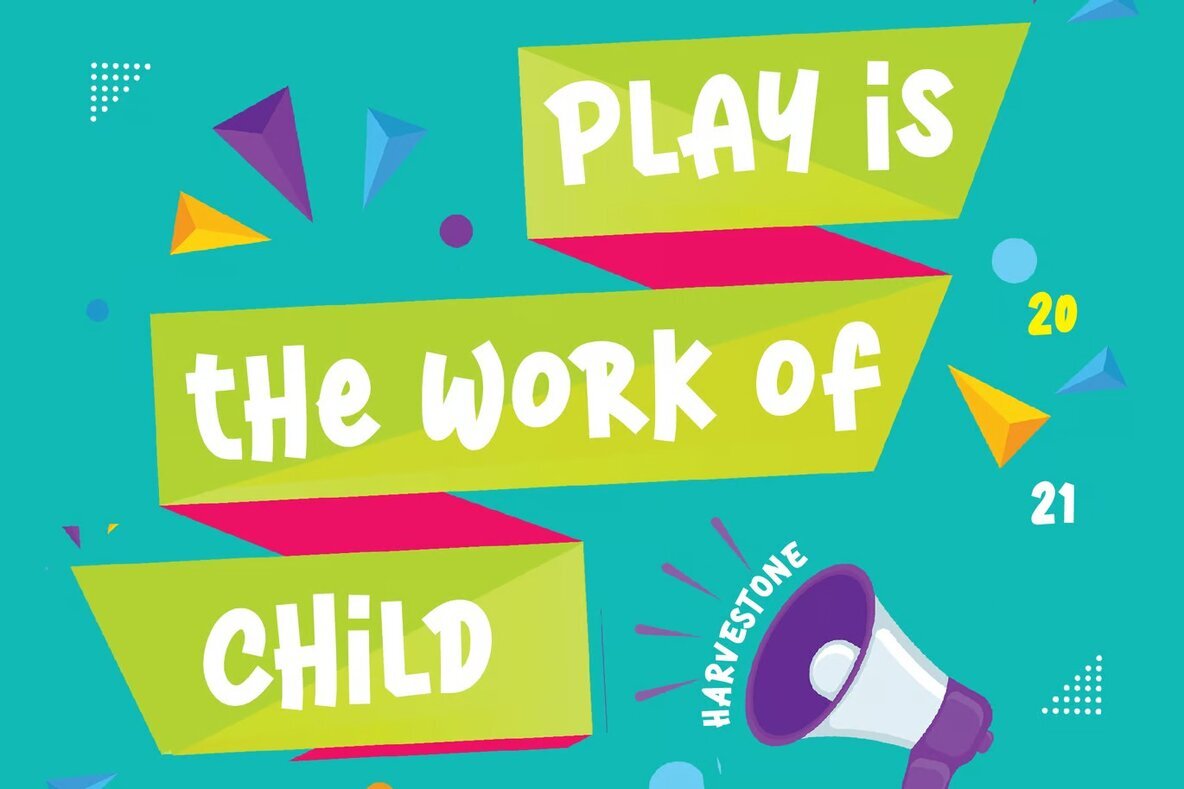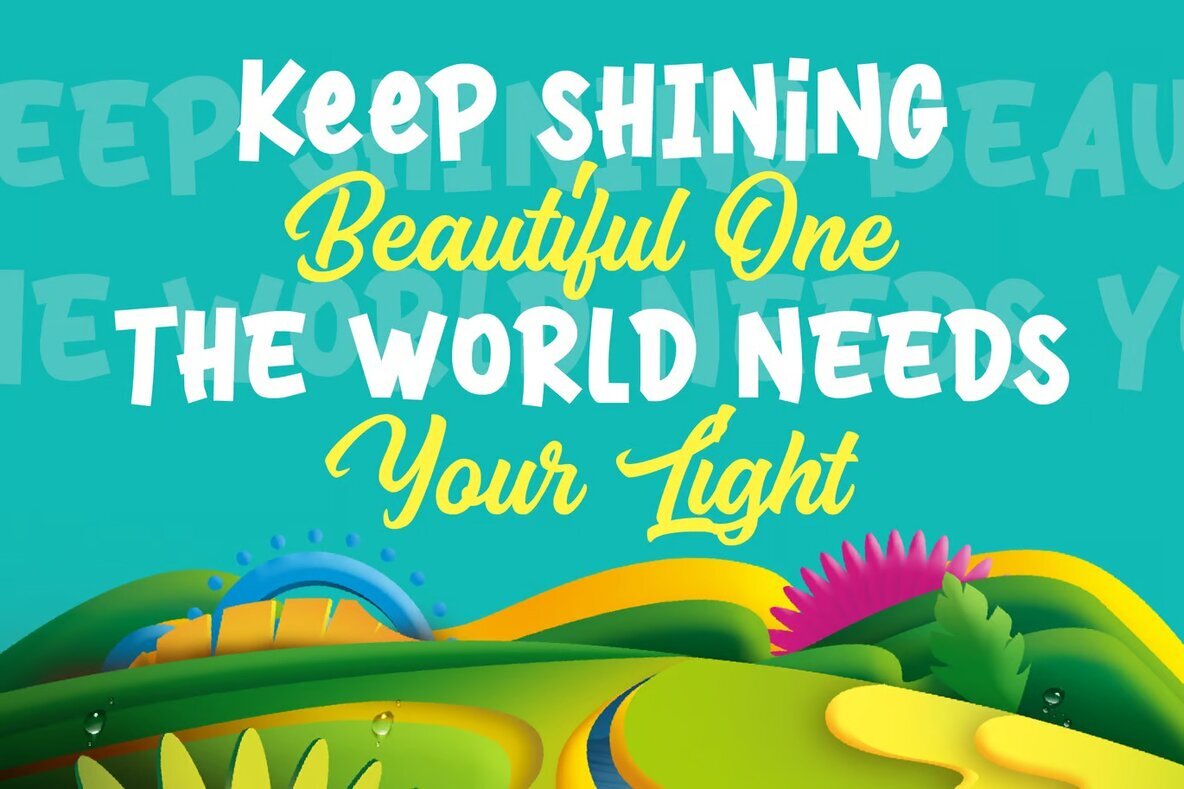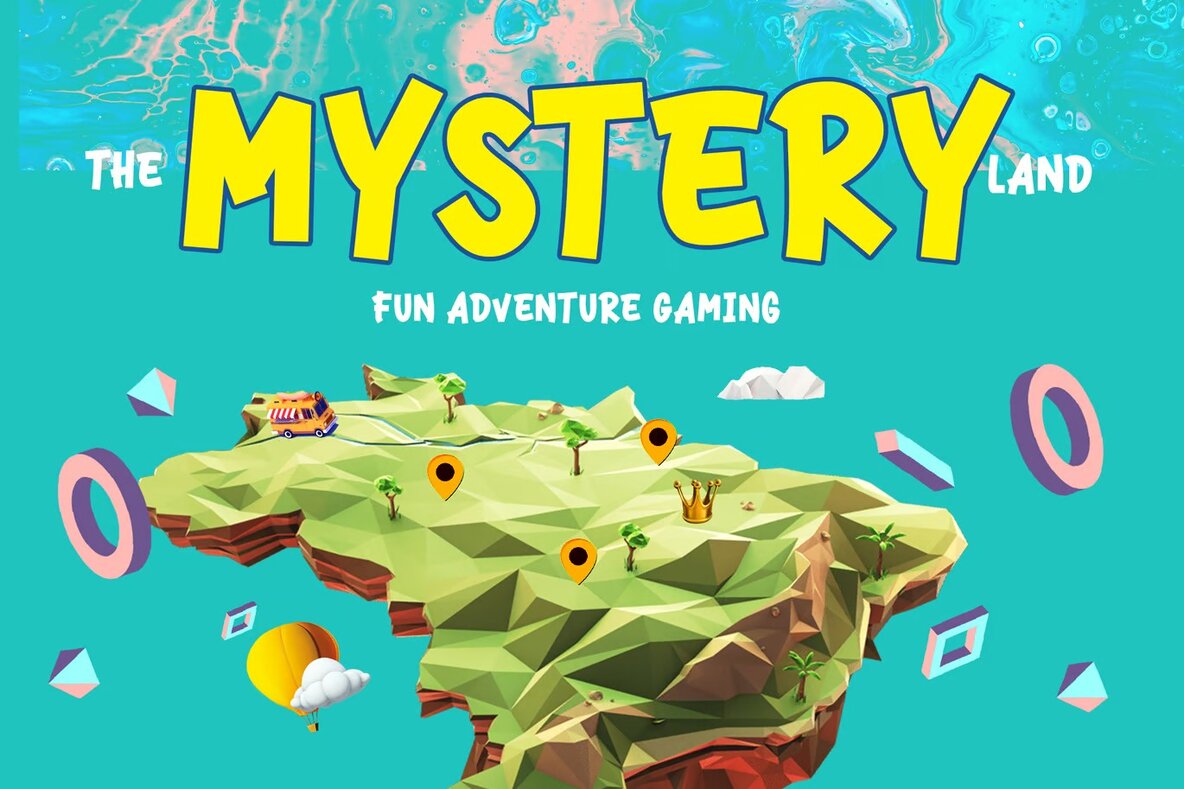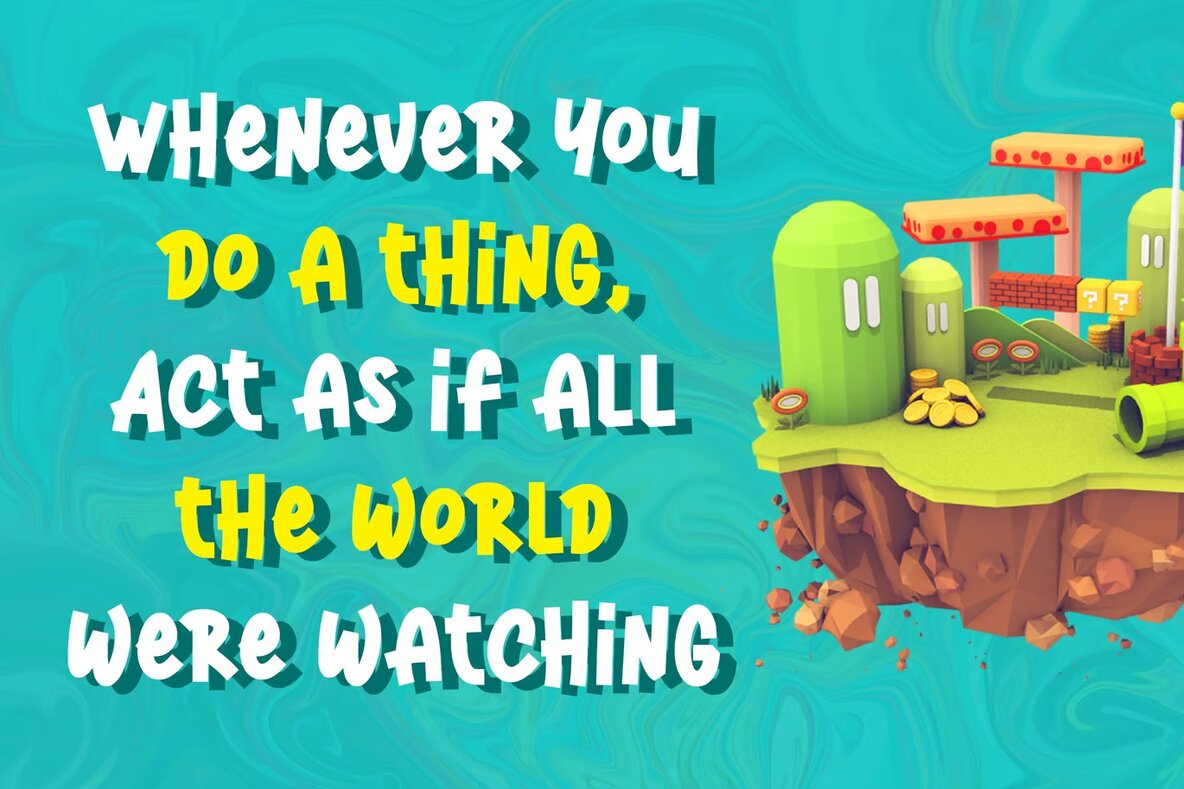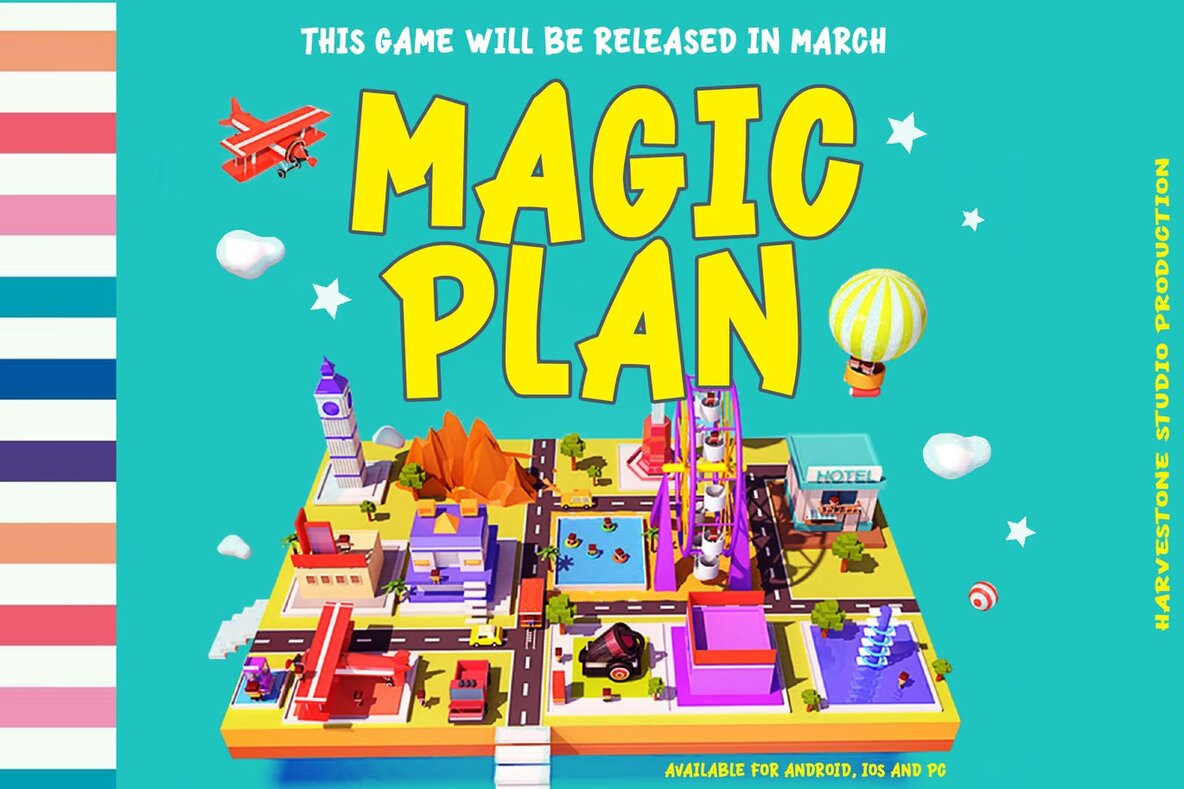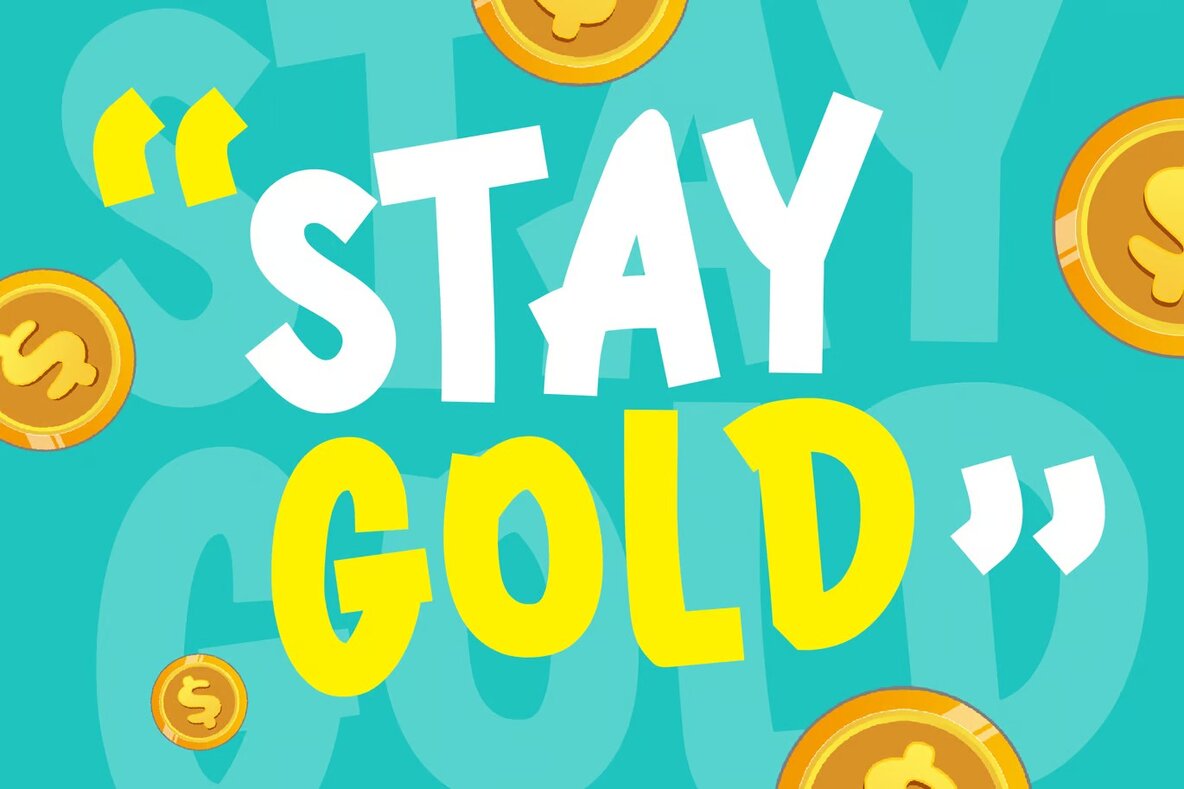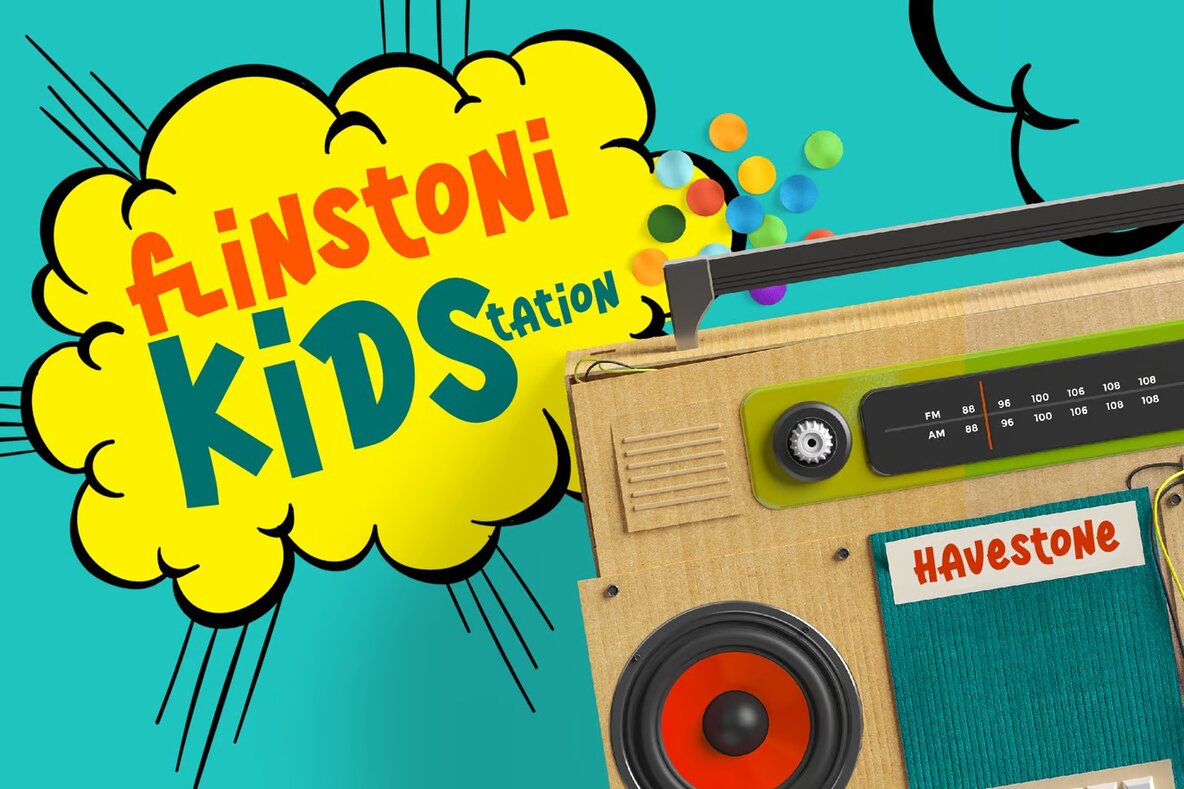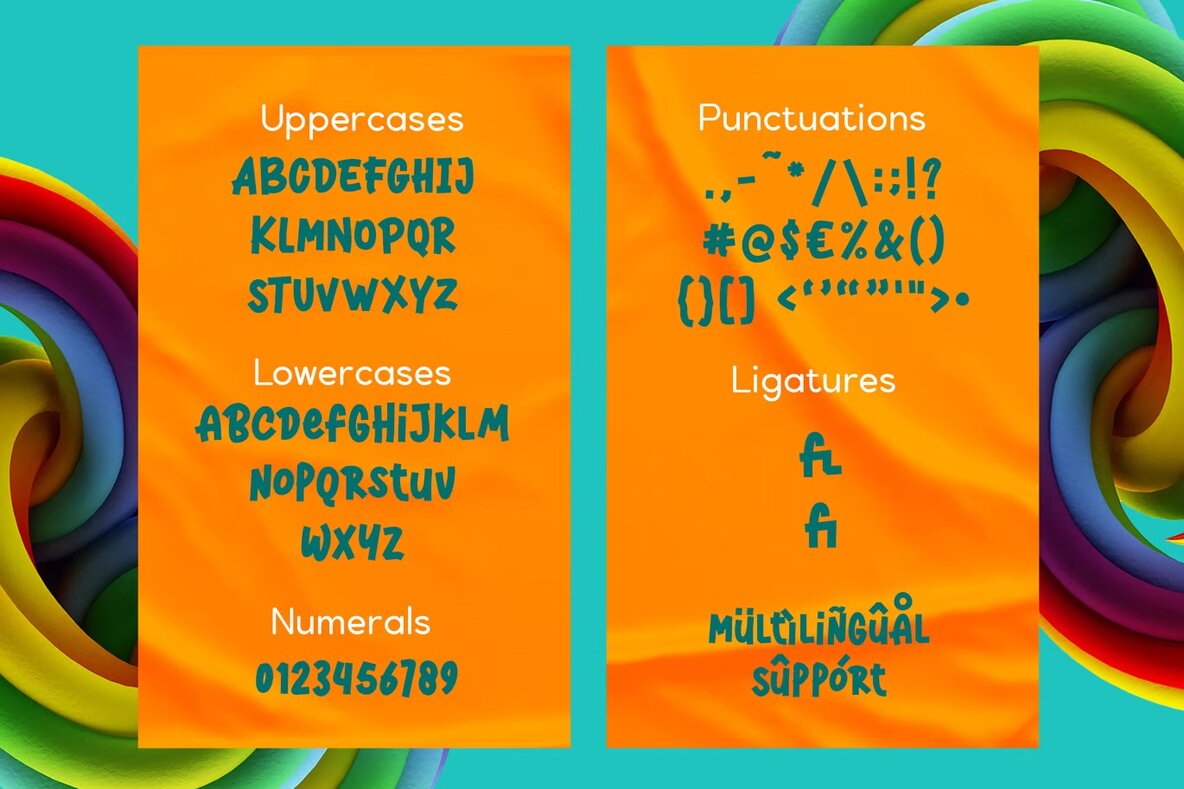
Harvestone Font
Harvestone is a playful sans serif font that brings a delightful touch to your design projects. With its amusing and cartoonish style, it's perfect for creating vibrant kid-friendly visuals. Whether you're designing a logo for a children's game or branding for a kindergarten, Harvestone offers the whimsical charm needed to capture a youthful spirit.
This font shines in various applications, from snack packaging and children's books to toy branding and modern advertising. Its versatility extends to posters, quotes, and any project that requires a fun, hand-lettered feel. Harvestone enhances the liveliness of animations and cartoons, making it an excellent choice for bringing your creative ideas to life. Embrace the fun and enchanting essence of Harvestone for all your imaginative design needs.